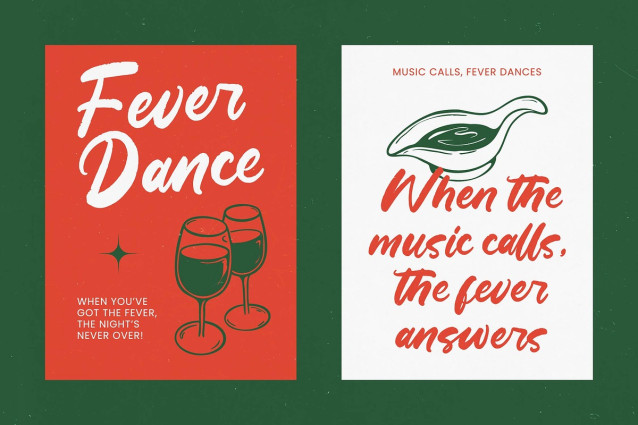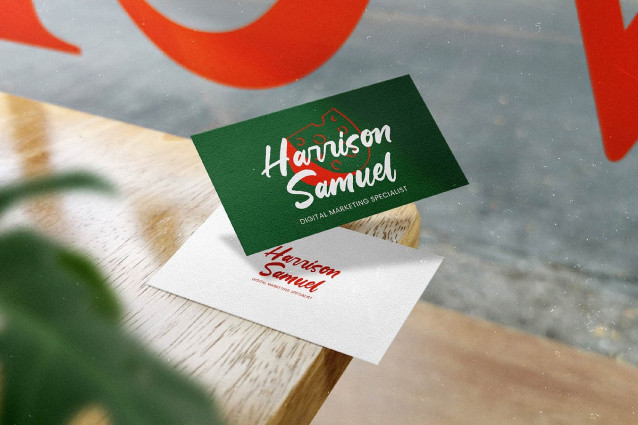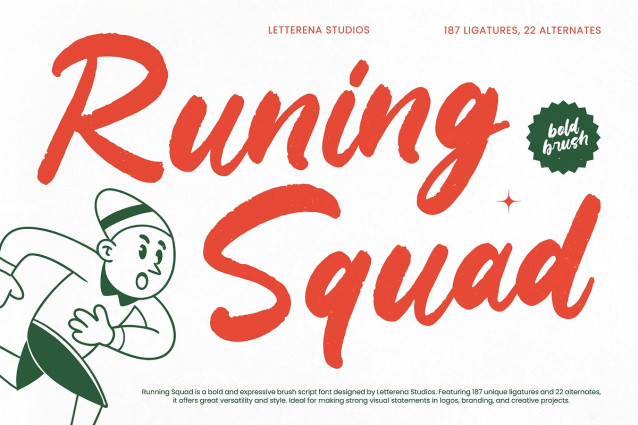
Runing Squad Script Font
Runing Squad Script Font – Bold Brush Script – Unleash dynamic energy and commanding presence in your next creative venture with Runing Squad – Bold Brush Script. This masterpiece of expressive typography is meticulously designed to capture immediate attention through its raw energy and fluid, rhythmic motion. As a premier bold brush script, it features hand-drawn strokes that convey a sense of organic texture and unstoppable momentum, ensuring that Runing Squad – Bold Brush Script provides the necessary visual weight to dominate any digital or print landscape.
Reach a worldwide audience with confidence and stylistic flair. With its extensive multilingual support, Runing Squad – Bold Brush Script adapts seamlessly across global markets, making it incredibly versatile for international projects. This high-performance font ensures your messaging remains stylistically consistent and impactful across diverse regions, empowering designers to execute cross-border campaigns with absolute typographic excellence.
Achieve ultimate creative control and a handmade feel with a vast library of integrated features. Runing Squad – Bold Brush Script offers incredible depth through its 187 unique ligatures and 22 stylized alternates, allowing for a truly bespoke aesthetic that mimics natural brushwork. By utilizing these sophisticated opentype features, Runing Squad – Bold Brush Script enables the creation of custom logotypes and signature graphics that feel uniquely tailored to your specific brand narrative.
Elevate your brand identity by utilizing this font in its ideal application environments. Runing Squad – Bold Brush Script is perfect for athletic apparel branding, urban streetwear design, and high-energy packaging that demands to be noticed. It also excels in editorial layouts and dynamic social media graphics where a strong visual statement is required. For professionals seeking impactful marketing materials and distinctive brand identities, Runing Squad – Bold Brush Script is the definitive choice for unforgettable design solutions.